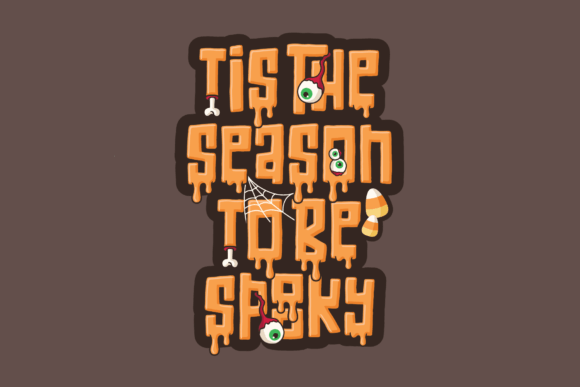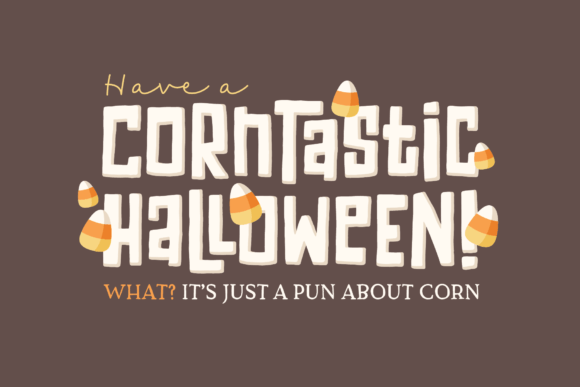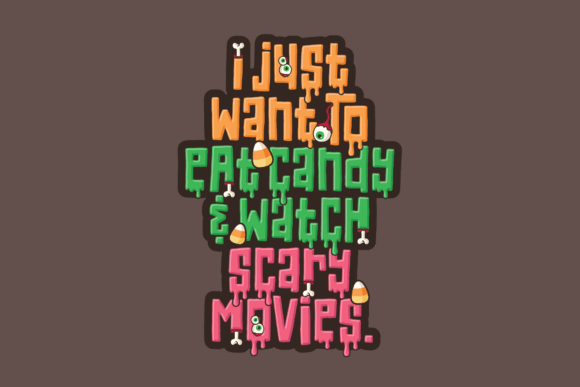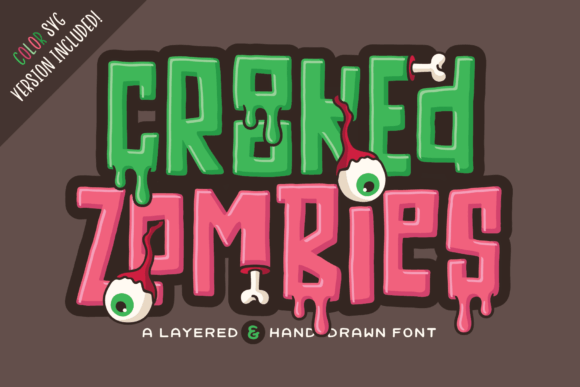
Introduction to Crooked Zombies Font
Crooked Zombies is an incredibly fun and unique, hand-drawn display font.
πŸ‘€ Author Denise Chandler
With 4 layers to mix and match plus 2 color font variations (one with zombie doodles and one without), the options are endless It’s perfect for Halloween designs, but can also be used in a variety of other ways.